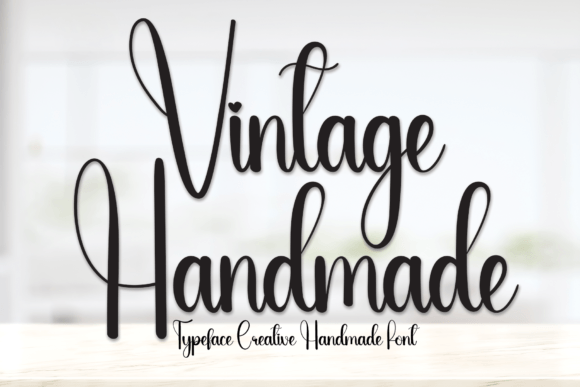
About Vintage Handmade Font
Vintage Handmade is a sweet and friendly handwritten font that brings a nostalgic and heartfelt charm to your creative projects. With its relaxed and natural feel, this font is perfect for adding a warm, handcrafted touch to your designs. Whether you’re working on wedding invitations, thank-you cards, or decorative labels, Vintage Handmade will elevate your message with style and sincerity.
Designed to mimic the organic strokes of hand lettering, this font adds a sense of authenticity and emotion to any design. Its casual yet elegant look makes it ideal for both personal and professional use, giving your text a sense of warmth that resonates with viewers.
A Nostalgic Font with Timeless Charm
Vintage Handmade captures the essence of classic handwriting with modern usability. Its well-balanced letterforms and subtle imperfections give it a human touch that digital type often lacks. This makes it a popular choice for projects that need to feel real, emotional, and engaging.
Whether you’re designing printed materials or creating digital graphics, this font adapts beautifully to various contexts. It’s especially well-suited for wedding stationery, boutique branding, handmade product packaging, and heartfelt quotes on social media.
Key Features:
Sweet, relaxed handwritten style
Uppercase and lowercase letters
Clean, balanced characters for better readability
Vintage Handmade is more than just a font—it’s a feeling. It evokes memories of handwritten letters, cozy afternoons, and heartfelt sentiments. Its versatility and charm make it a must-have for designers and crafters who want to add a genuine, personal touch to their work.
Why Choose Vintage Handmade?
What sets Vintage Handmade apart is its balance between playful character and clean professionalism. It feels casual and easy-going, yet it retains a level of polish that works across a range of design aesthetics. Use it alone or pair it with a bold sans-serif for beautiful contrast in branding, packaging, or event materials.
From rustic chic to minimal elegance, this font brings a warm and familiar energy to your creative process. It helps your message feel more human—more you.